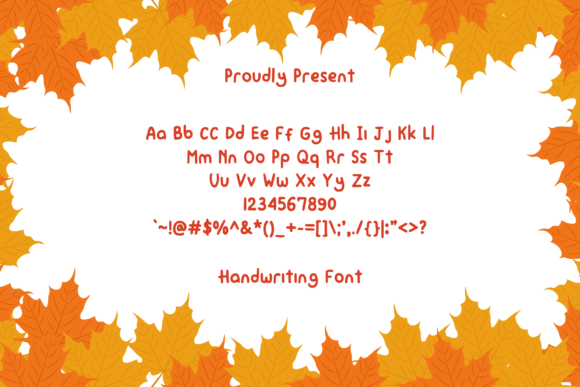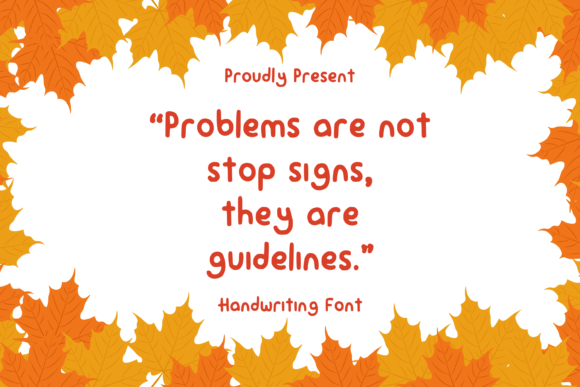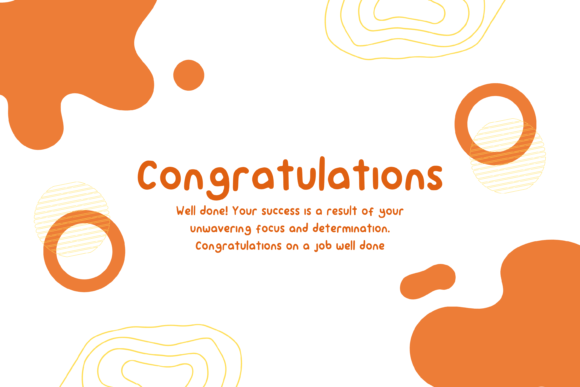
The Perfect Font for Your Next Creative Project
Remember that moment when you stumbled upon the perfect combination of colors, textures, and fonts that made your DIY project or social media post truly stand out? It’s the little details that often make all the difference, and for many creatives, the right font can be the game-changer.
Enter Gapapa Font, a delightful and simple handwriting font that’s perfect for adding a personal touch to your designs. Whether you’re a seasoned graphic designer or a hobbyist looking to elevate your Instagram aesthetic, Gapapa Font is a valuable addition to your toolkit. Its cute and playful feel makes it an ideal choice for calligraphy scripts, journaling, and other creative projects where a handwritten touch is desired.
Gapapa Font Key Features
- Font Family: Gapapa is a sans-serif font family designed for digital use, offering a clean and modern aesthetic.
- Size: Gapapa Font comes in 6 weights (Light, Regular, Medium, Bold, Extra Bold, Black) to cater to different design requirements.
- Resolution: Designed for high-resolution displays, Gapapa Font is optimized for use at resolutions of 72 dpi to 300 dpi.
- Unique Characteristics: Gapapa Font features a unique blend of geometric and organic elements, resulting in a distinctive and modern look.
- Language Support: Gapapa Font supports a wide range of languages, including Latin, Cyrillic, and Greek scripts, making it suitable for multilingual designs.
Gapapa Font Review
As a designer, I was excited to dive into the Gapapa Font and see what it had to offer. Here’s my honest review:
- The unique blend of modern and traditional design elements in Gapapa Font makes it stand out in a crowded market.
- The font’s versatility allows it to be used in a wide range of applications, from digital interfaces to print materials.
- The font’s weight range offers a good balance between light and bold, making it suitable for various text styles.
- The font’s legibility is excellent, making it easy to read even at small sizes.
- The font’s lack of bold weights beyond 600 makes it difficult to use in situations where a stronger emphasis is needed.
- The font’s italics may not be suitable for all uses, as they can appear somewhat inconsistent with the regular style.
Gapapa Font is a solid choice for designers looking for a unique and versatile font. While it may have some limitations, its strengths make it a worthwhile investment for those who need a high-quality font that can handle a variety of tasks.
Tips for Getting the Most Out of Gapapa Font
To get the most out of Gapapa Font, use it in conjunction with bold and italic text to create emphasis. You can also use it to create a unique and eye-catching title or heading. Experiment with different font sizes and colors to add visual interest to your design.
Gapapa Font is commonly used in graphic design, digital art, and typography projects. It’s particularly effective in creating a playful and modern look, making it ideal for branding, advertising, and social media graphics.
Alternatives to Gapapa Font
Great Vibes is a beautiful, handwritten script font perfect for creating a relaxed and casual atmosphere. It’s ideal for use in headings, titles, and quotes where a personal touch is desired. Great Vibes is more elegant and refined compared to Gapapa Font, which has a more rough and distressed look.
Pacifico is a elegant and modern script font that works well for both digital and print designs. It’s suitable for use in logos, branding, and advertising materials where a sophisticated look is required. Pacifico is more polished and refined compared to Gapapa Font, making it a great choice for high-end designs.
What is the recommended font size and line height for the Gapapa Font?
The recommended font size for the Gapapa Font is between 12-24 points, depending on the intended use and display context. For optimal readability, we recommend a line height of at least 1.2-1.5 times the font size. You can adjust these settings to suit your design needs and preferences.